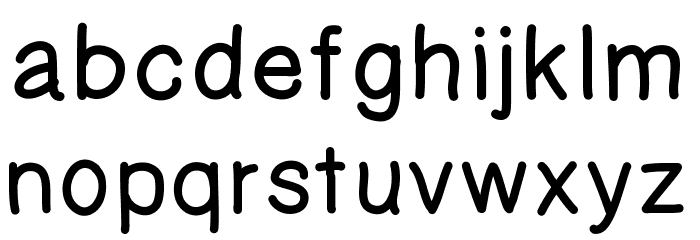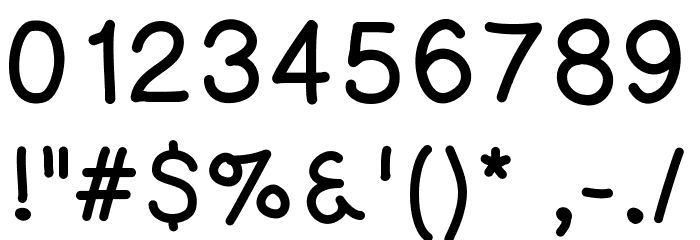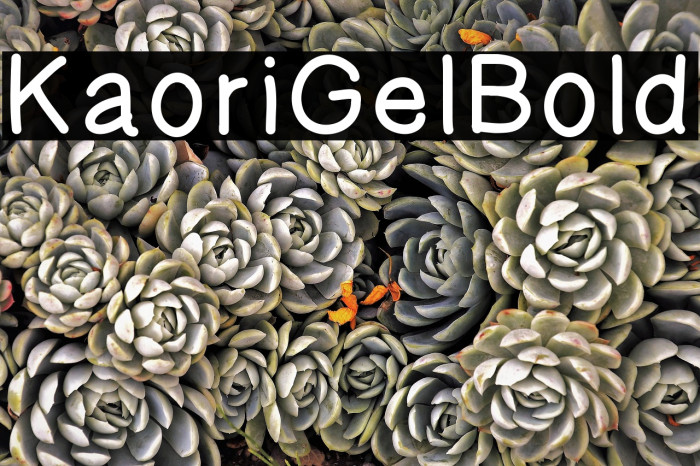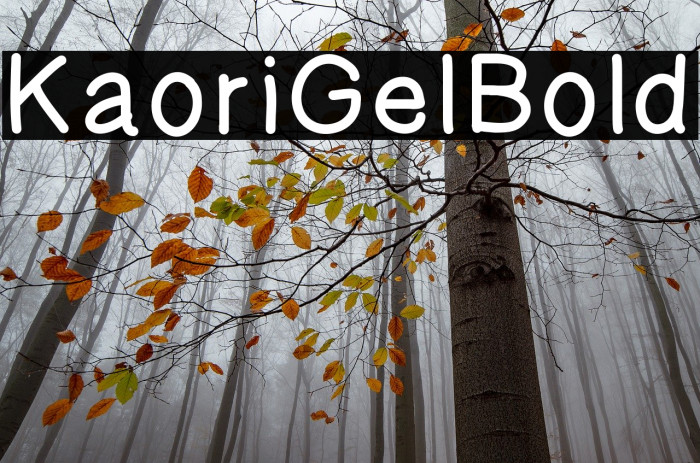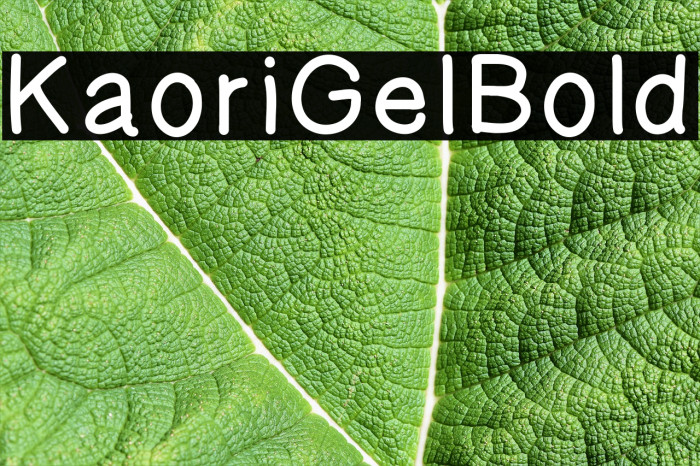
KaoriGelBold Font
This font features a playful and rounded design, characterized by its smooth curves and friendly appearance. The letters are evenly spaced, with a consistent stroke width that gives it a cohesive look. The uppercase and lowercase letters maintain a uniform style, making it versatile for various applications. The numerals and special characters are designed to match the overall aesthetic, ensuring readability and visual harmony. Its bold nature adds emphasis without being overpowering, making it suitable for both casual and professional settings.
A playful, rounded font with smooth curves and consistent stroke width.
- Proposed Projects: Ideal for children's books, playful branding, casual invitations, and friendly user interfaces.
- Use Case: Headlines, Logos, Casual Text